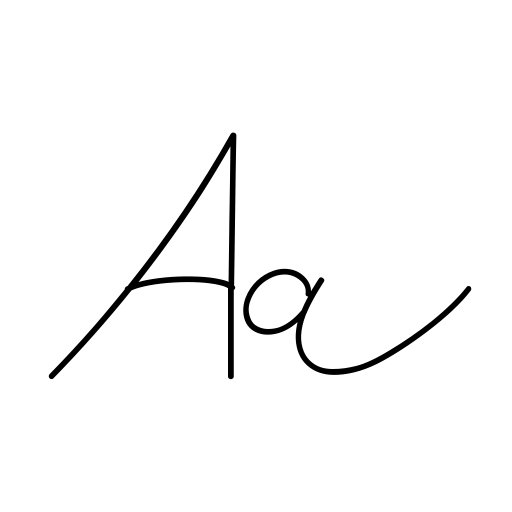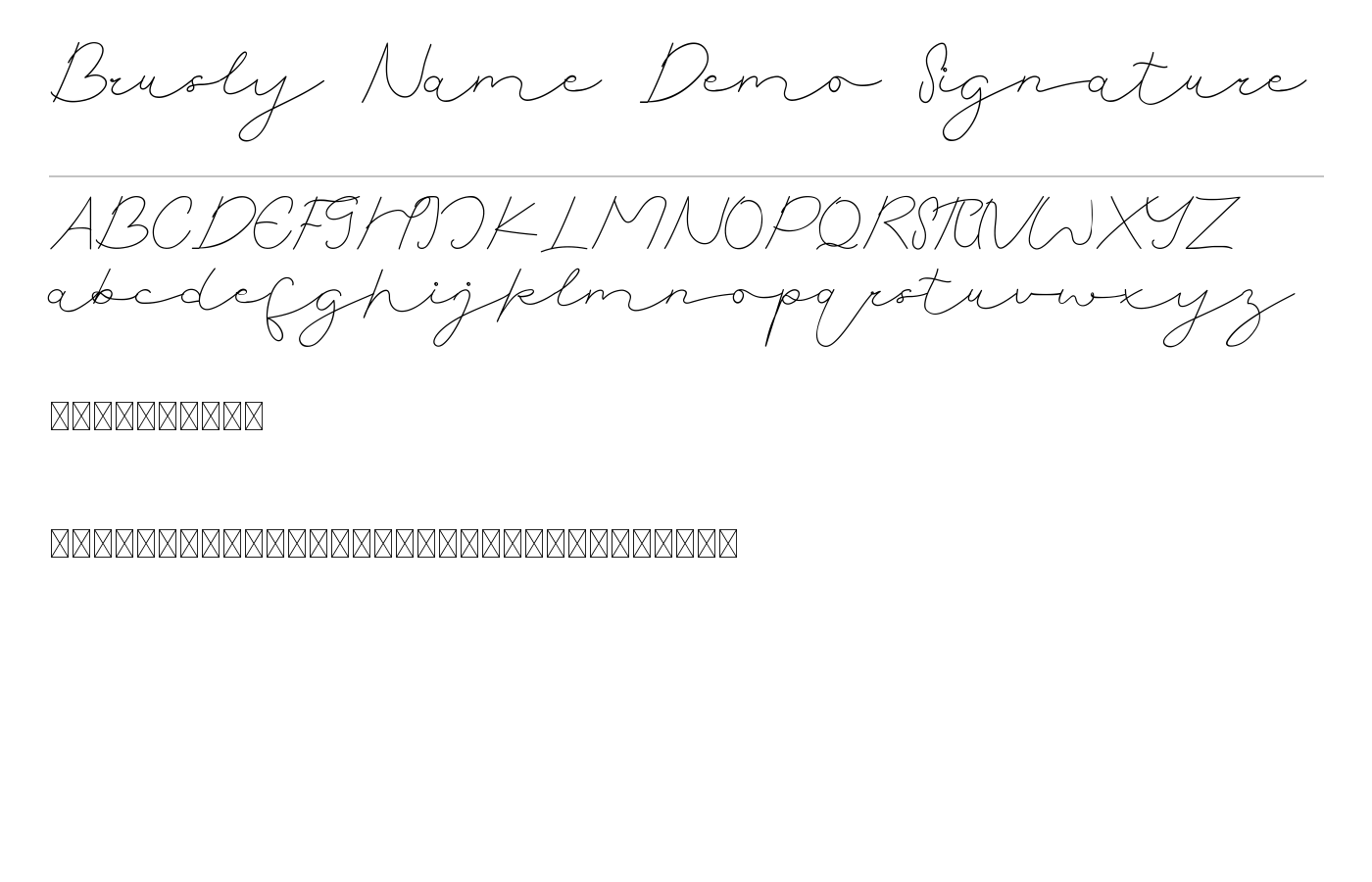
Brusly Name Demo is a delicate and elegant script font that mimics a natural, flowing handwritten signature. Its thin, graceful strokes and airy letterforms give it a personal, sophisticated feel, making it perfect for invitations, branding, and any design needing a touch of refined authenticity and charm. This font excels in creating an intimate, stylish mood, ideal for fashion, luxury, and creative projects.
Brusly Name Demo Font
About Brusly Name Demo Font
| Font family | Brusly Name Demo Font |
| Designer | Yasri Ainun & Suci Anita |